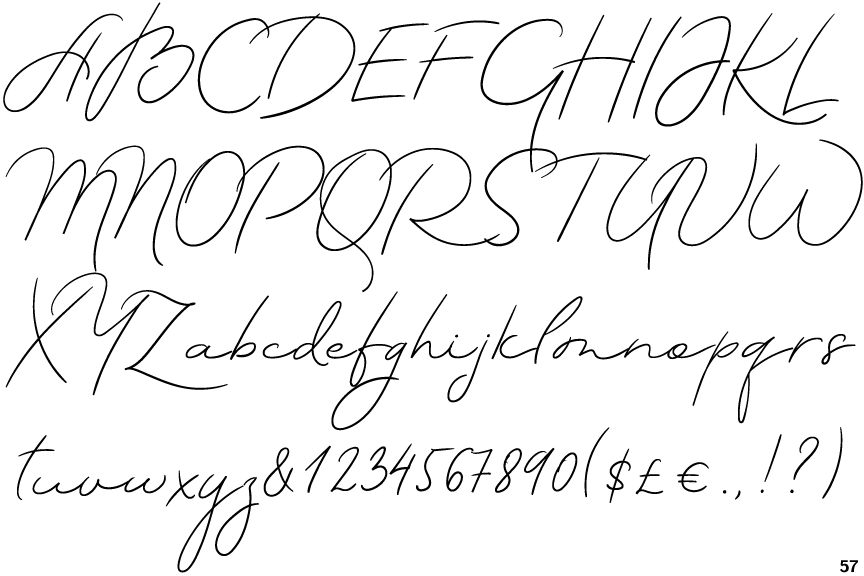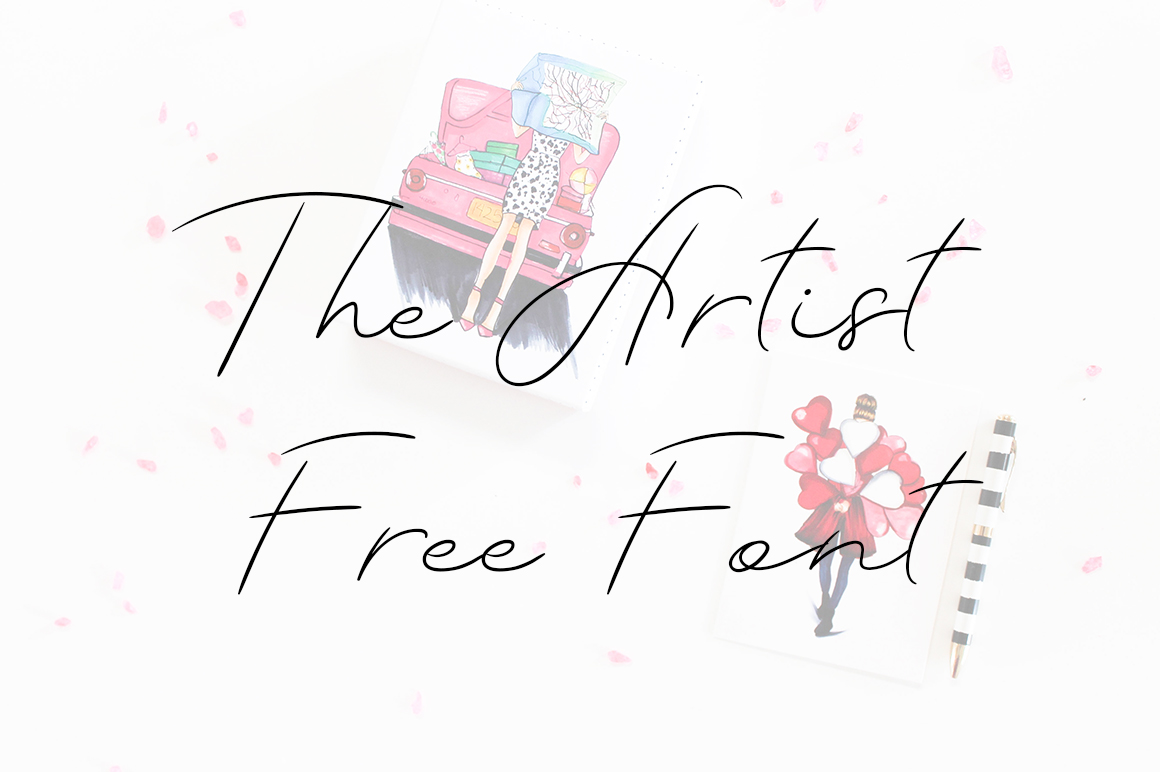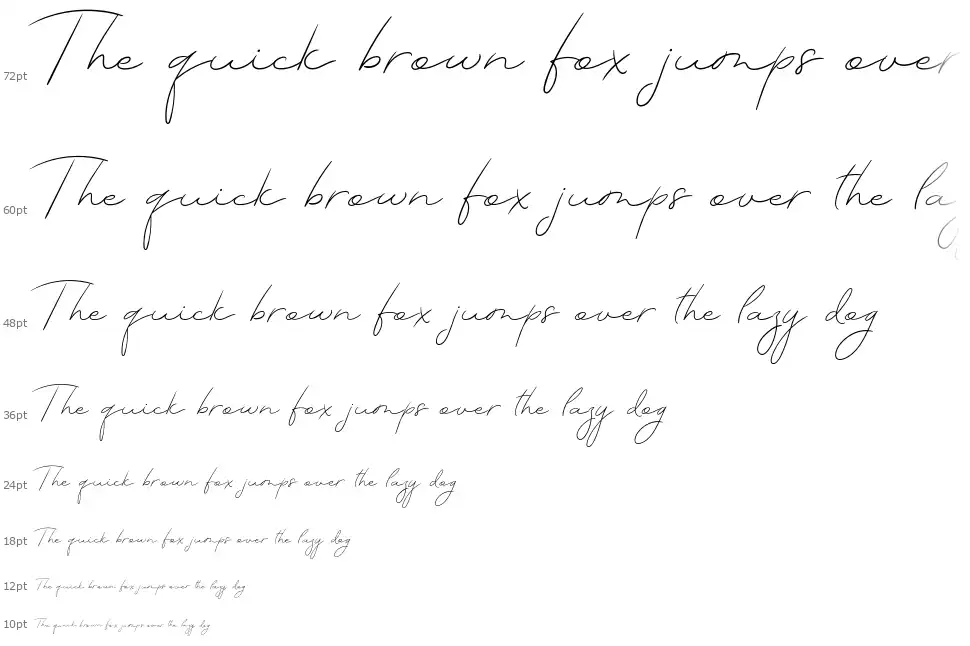
London Free Art Deco Font The Artist Script Font Download Click here to create a custom image with your own text. download free theartist script font, view its character map and. Download font free at fontriver. Moreover, you can embed it to your. looking for theartist script font designed by madetype? Theartist sans is equipped with swash alternates. Theartist sans is. The Artist Script Font Download.
22 Free Handwriting Fonts Free script fonts, Free fonts handwriting The Artist Script Font Download Click here to create a custom image with your own text. Theartist sans is equipped with swash alternates. Download font free at fontriver. Moreover, you can embed it to your. Theartist sans is equipped with swash alternates. looking for theartist script font designed by madetype? download free theartist script font, view. The Artist Script Font Download.
Best Calligraphy Fonts in Canva Canva Templates The Artist Script Font Download looking for theartist script font designed by madetype? Theartist sans is equipped with swash alternates. download free theartist script font, view its character map and. Moreover, you can embed it to your. Click here to create a custom image with your own text. Theartist sans is equipped with swash alternates. Download font free at fontriver. Theartist sans is. The Artist Script Font Download.